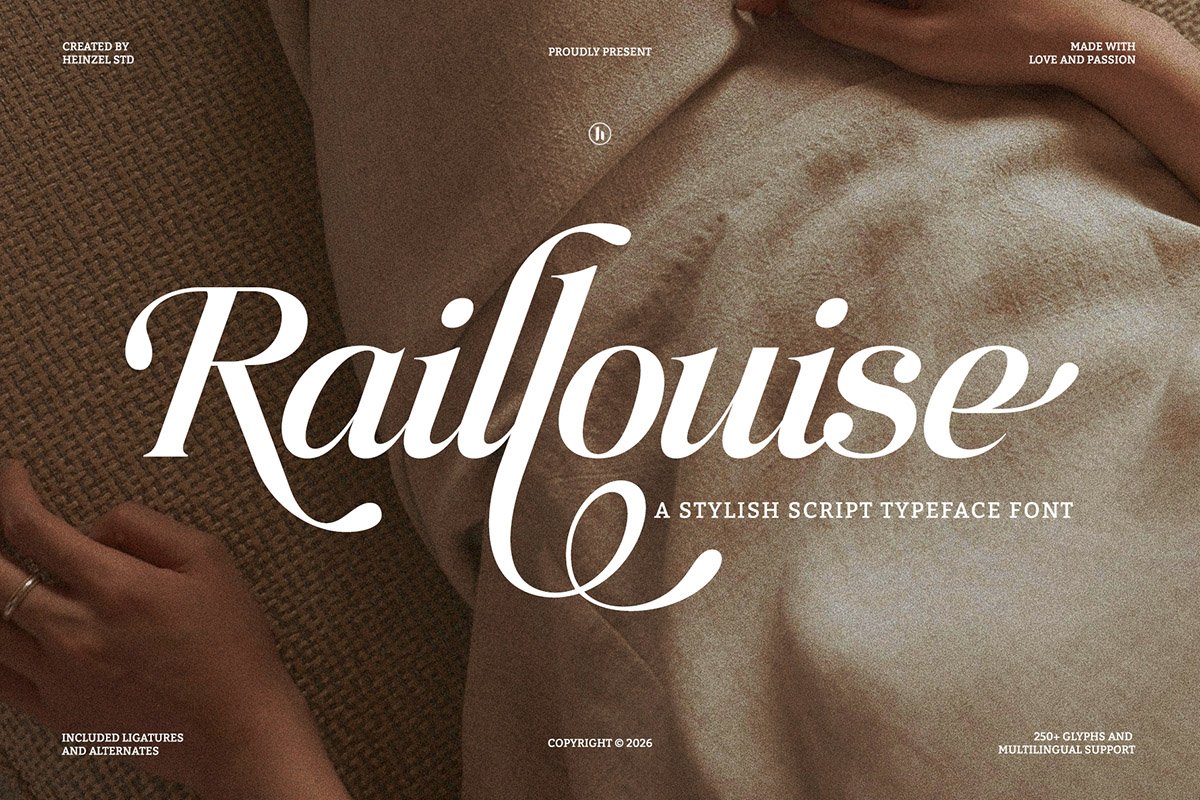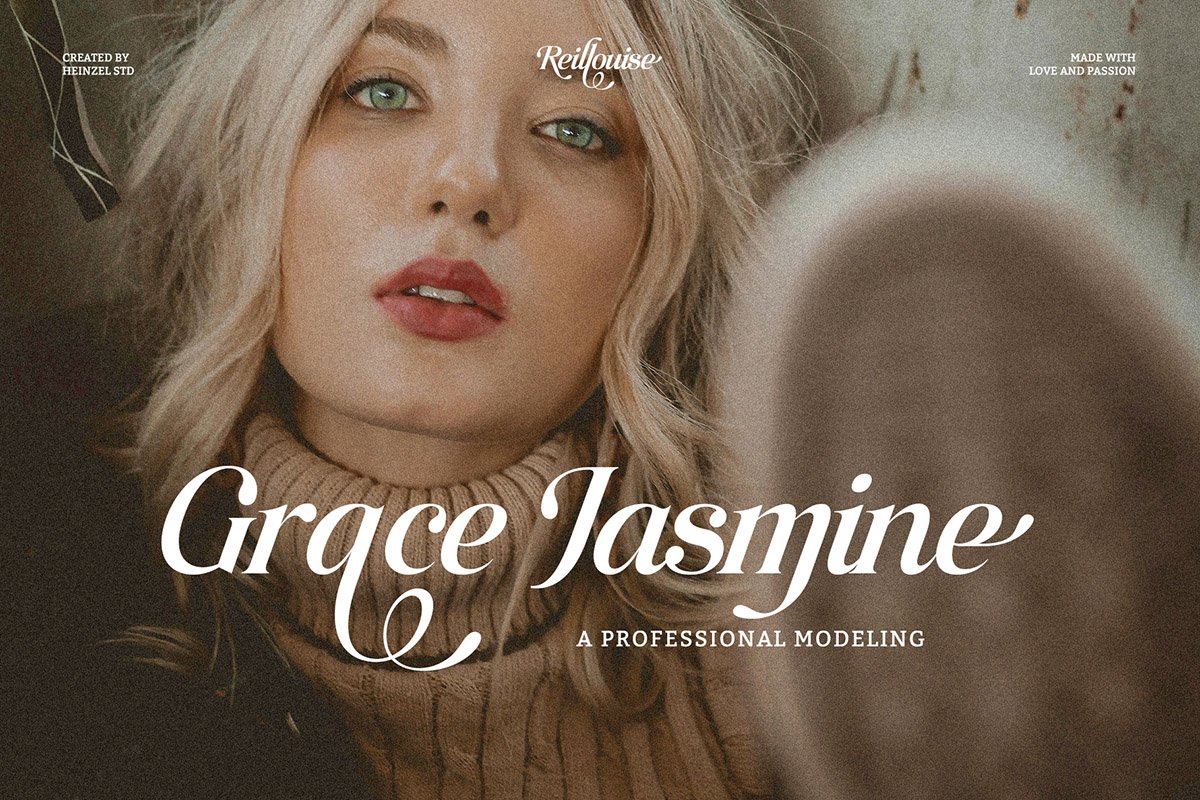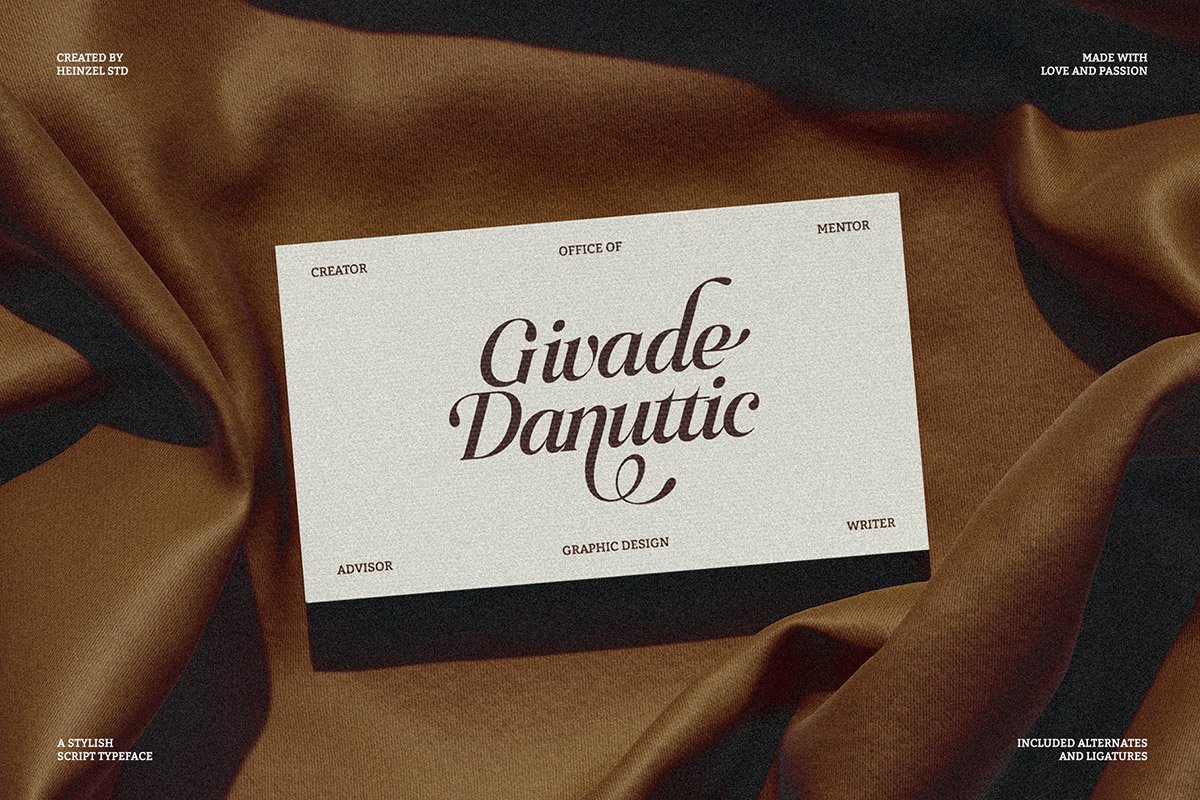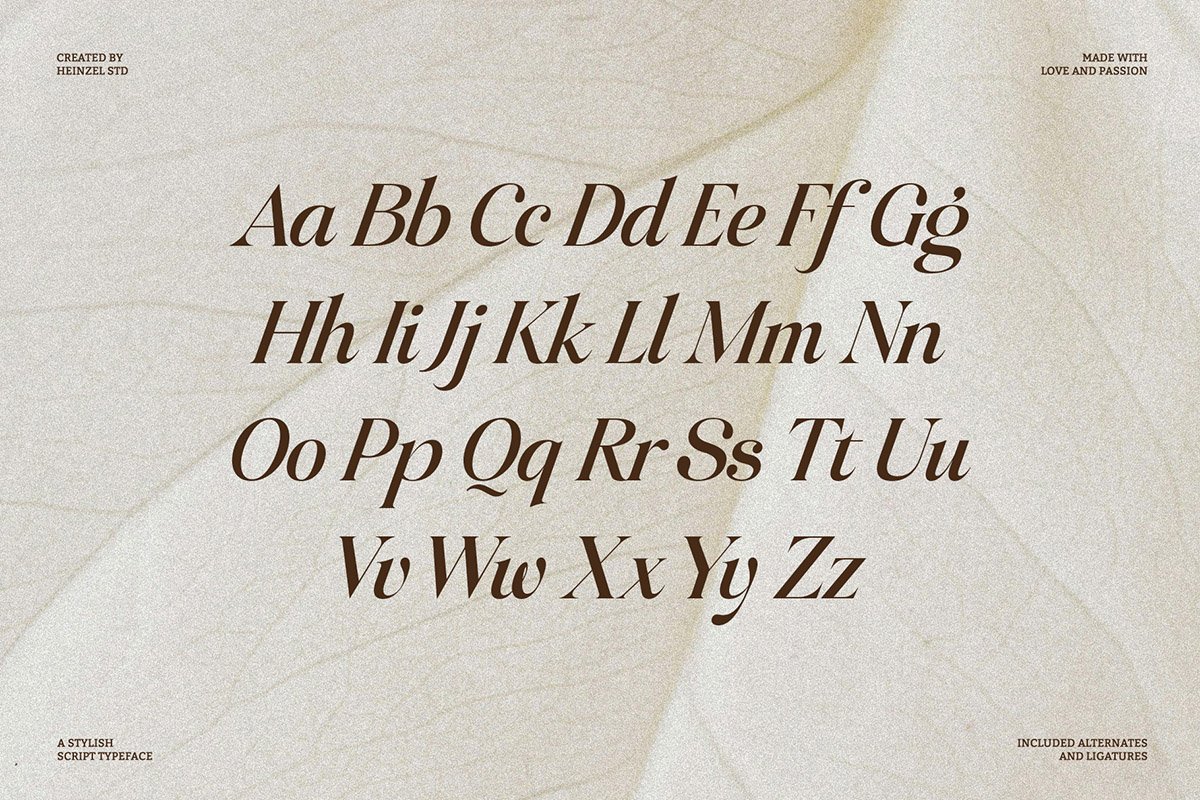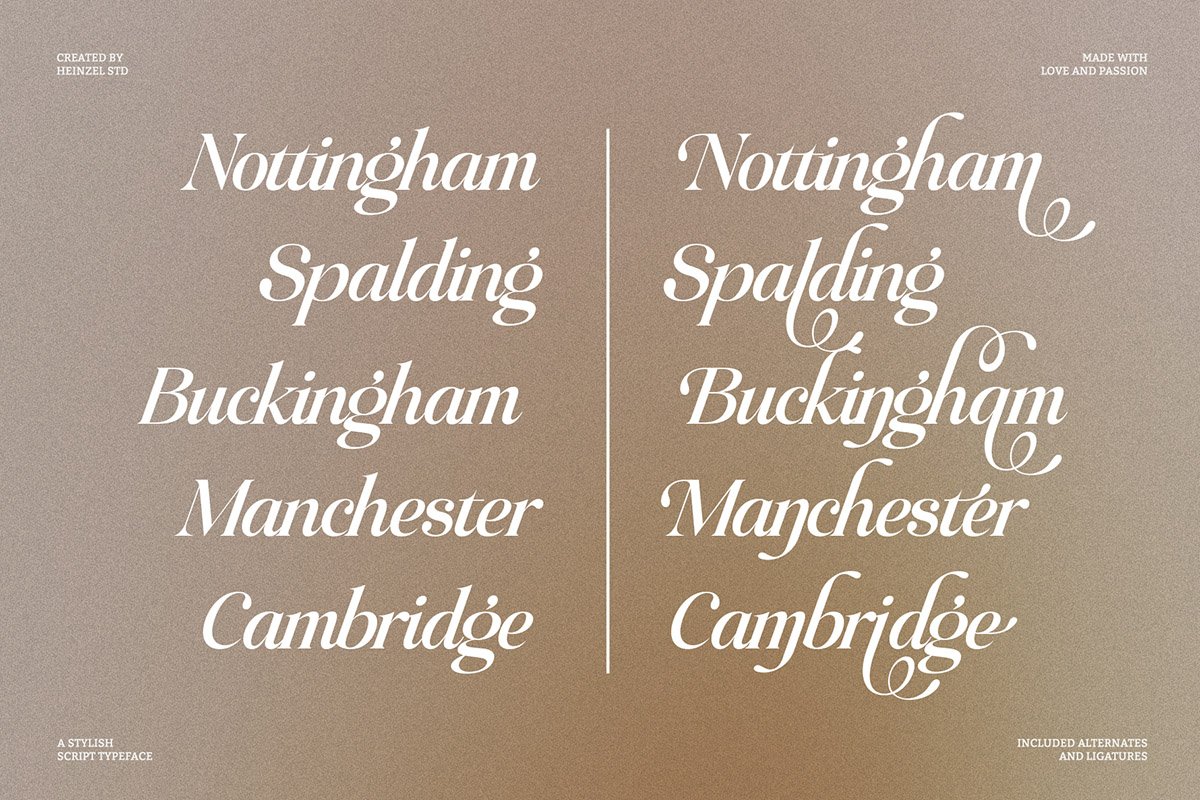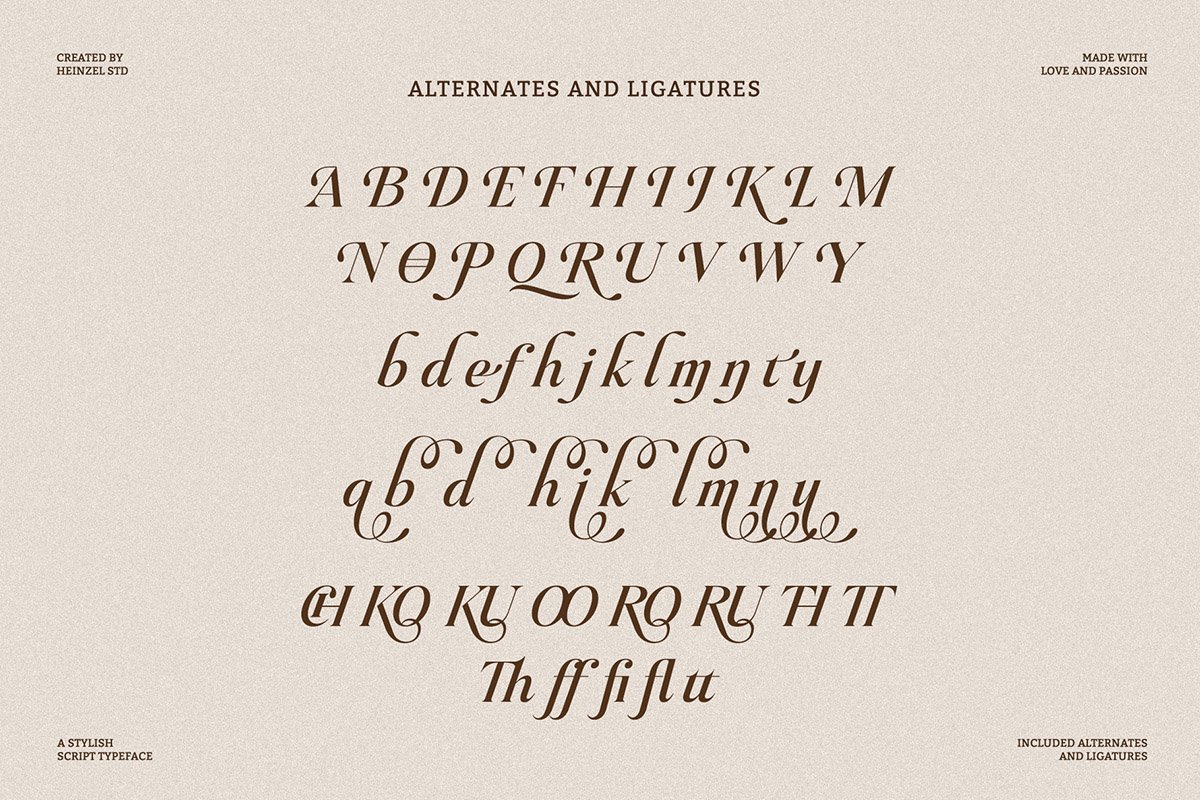
Reillouise Stylish Script Font is a font that blends modern elegance with timeless calligraphy. Designed with smooth curves, flowing strokes, and refined ligatures, this font delivers a luxurious and feminine feel perfect for branding, wedding invitations, logos, packaging, and social media designs. Its natural handwritten style creates an authentic and sophisticated look, while the carefully crafted alternates and swashes add versatility and charm to every project. It is ideal for designers seeking a high-end script font that stands out with grace and personality.